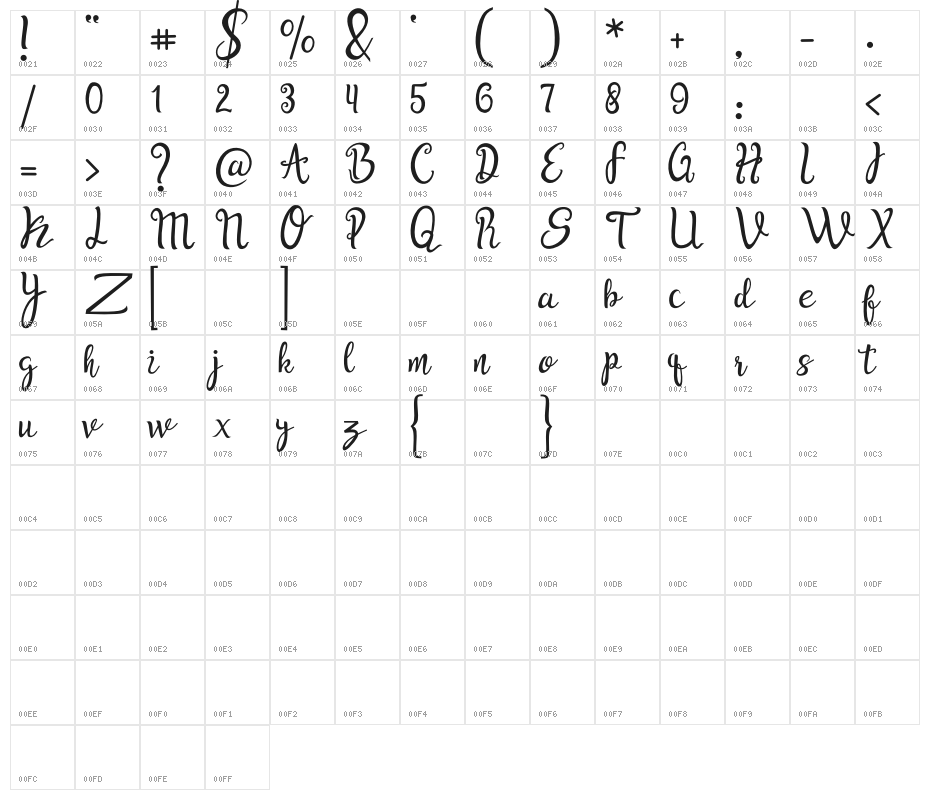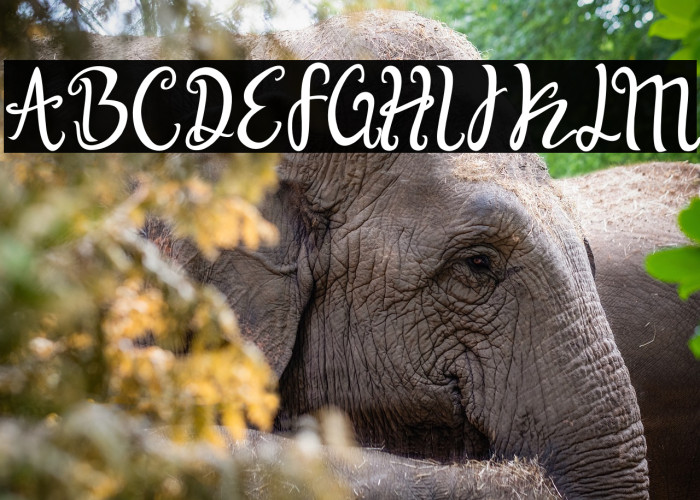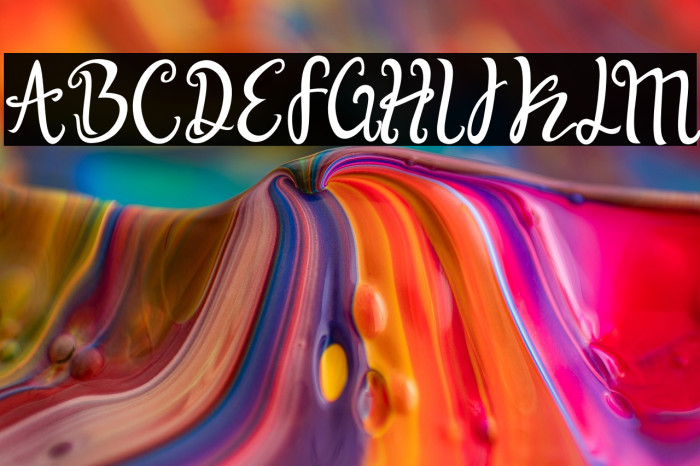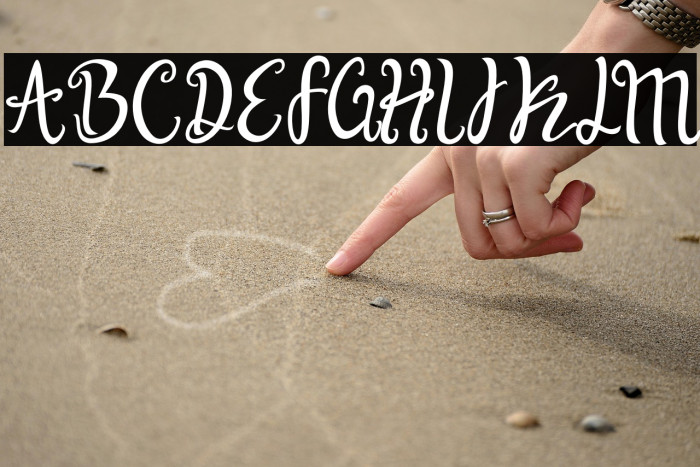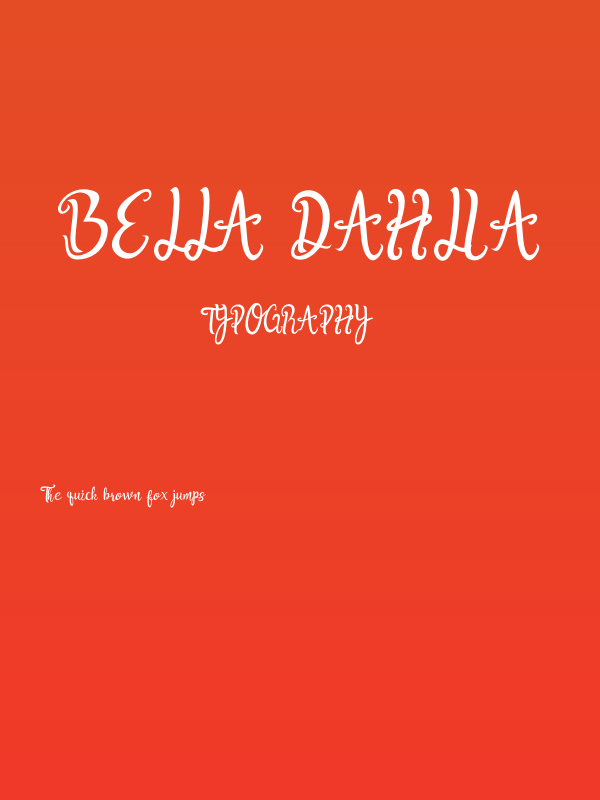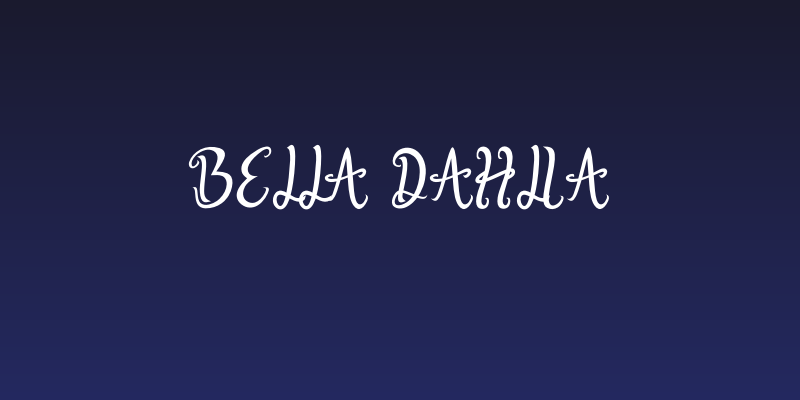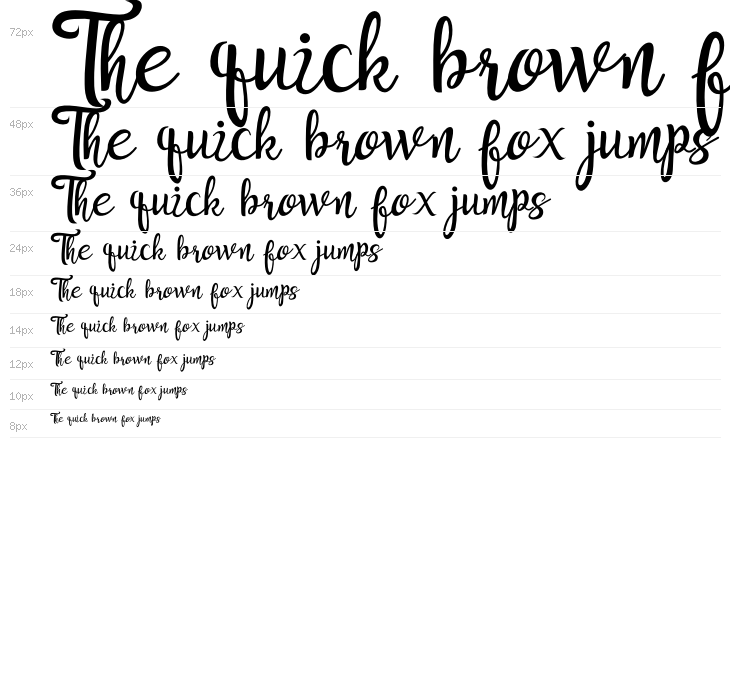
Bella Dahlia Font
Bella Dahlia Description
This font exhibits a charming and whimsical script style, characterized by its flowing, cursive letters that convey a sense of elegance and playfulness. The uppercase letters are bold and slightly exaggerated, with unique flourishes that add a decorative touch. The lowercase letters maintain a consistent flow, enhancing readability while retaining a hand-drawn aesthetic. Numbers are rounded and maintain the playful style of the letters, making them stand out. Special characters are creatively integrated, matching the overall whimsical theme. This font is perfect for projects that require a personal, artistic touch.